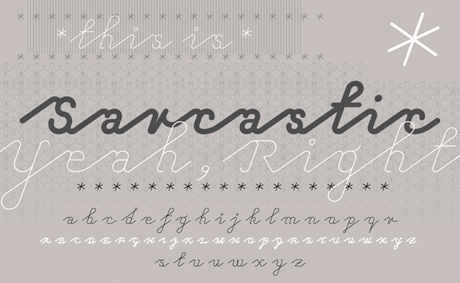
Font Fetish: Jonathan Barnbrook
Readers of a certain age will remember when Emigre released Exocet and Mason, edgy yet elegant type families.
Exocet debuted in 1991.
Mason made the scene in 1992. Emigre recently released it in OpenType.
Both were created by Jonathan Barnbrook, a renowned British designer who now has his own foundry, Virus Fonts. On Virus, you can see what trendsetter Barnbrook has been up to lately.
Sarcastic, designed last year, looks like an evolution of an idea Barnbook explored in 2001's Echelon and Expletive.